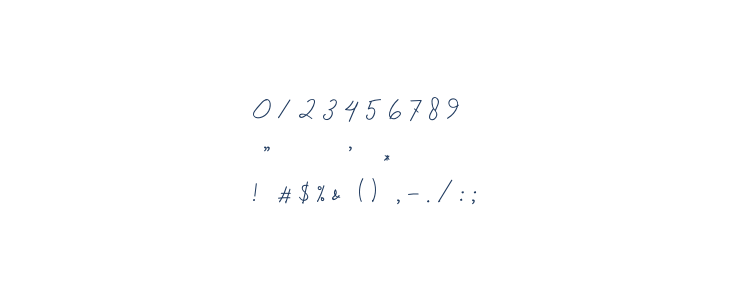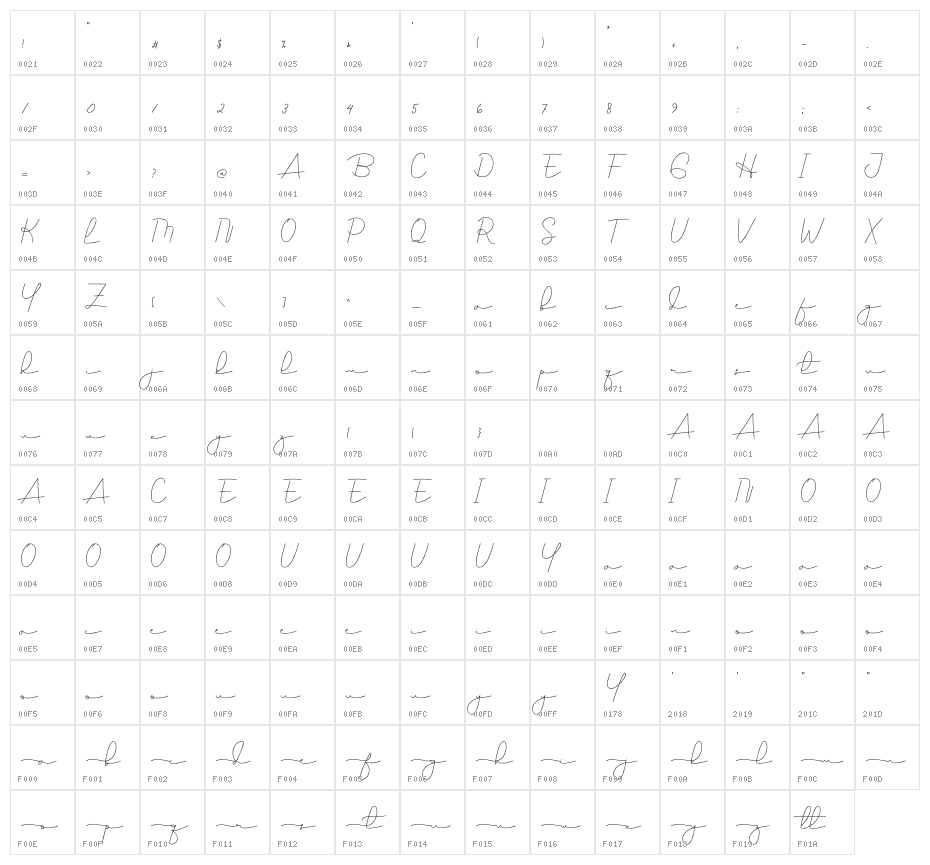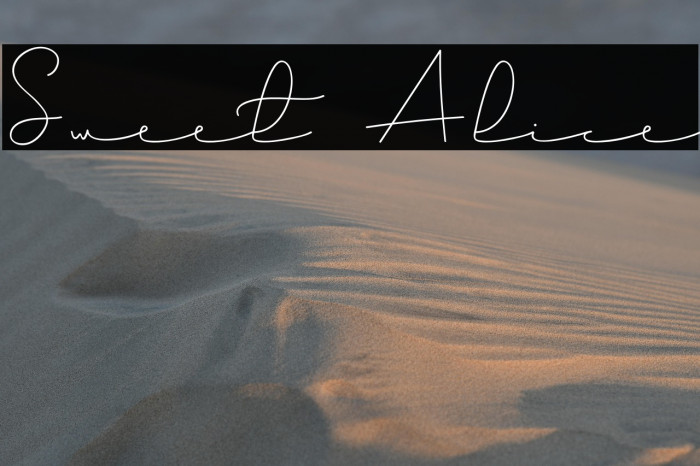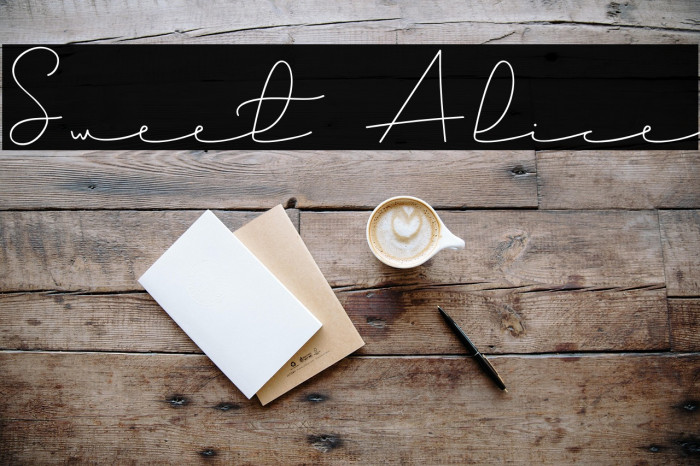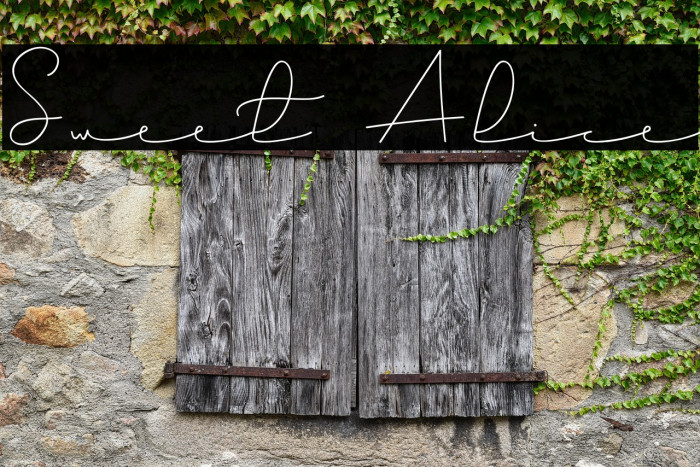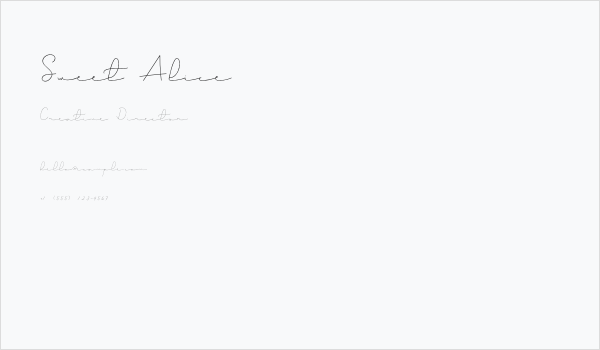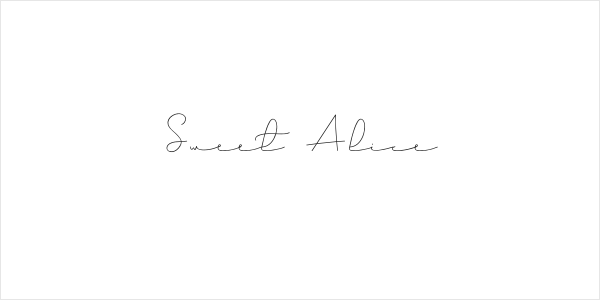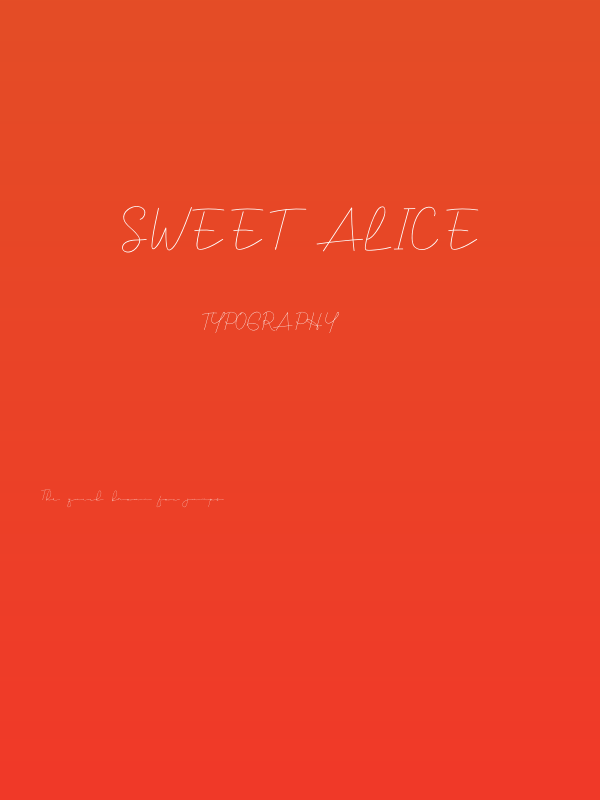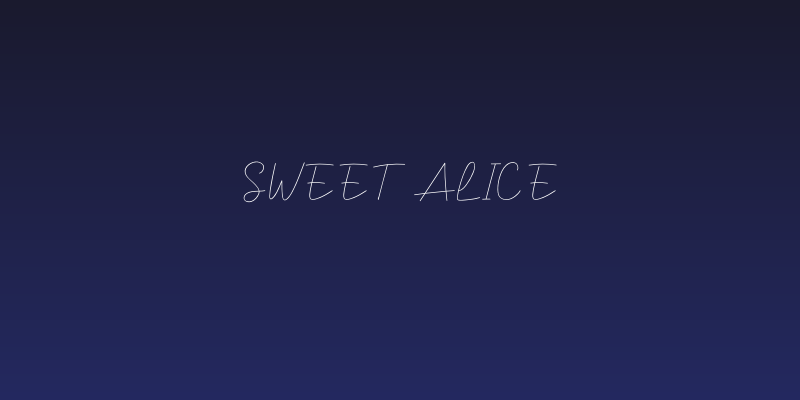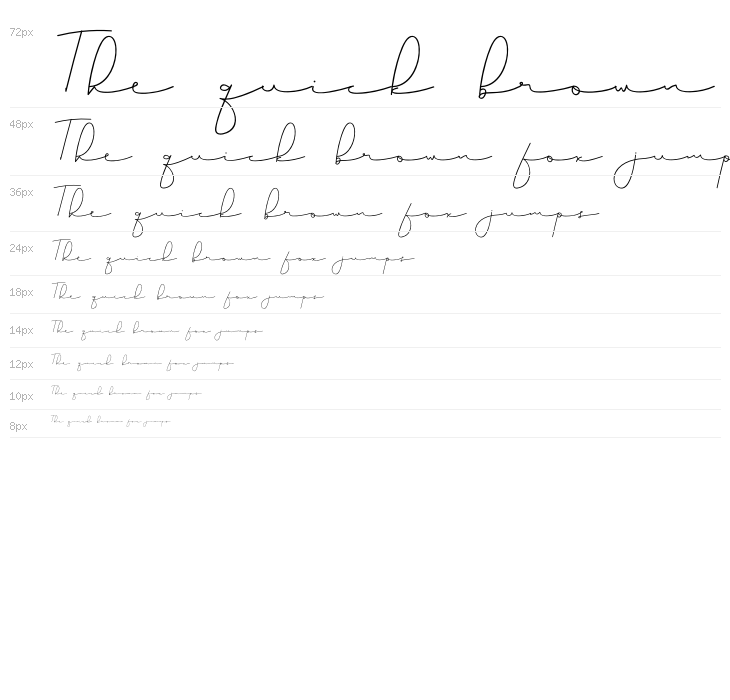
Sweet Alice Font
Sweet Alice Description
This font features a delicate and flowing script style, characterized by its elegant, cursive letterforms. The uppercase letters are distinct with a slight slant, giving a sense of movement and grace. The lowercase letters are connected, enhancing the fluidity and continuity of the text. The numerals and special characters maintain the same graceful aesthetic, ensuring consistency across all glyphs. The thin strokes and gentle curves contribute to a light and airy feel, making it suitable for designs that require a touch of sophistication and elegance.
| Overall Style | Elegant |
| Use Case | Logos, Invitations, Decorative text |
| Proposed Projects | Ideal for wedding invitations, greeting cards, elegant branding, and personal stationery. |